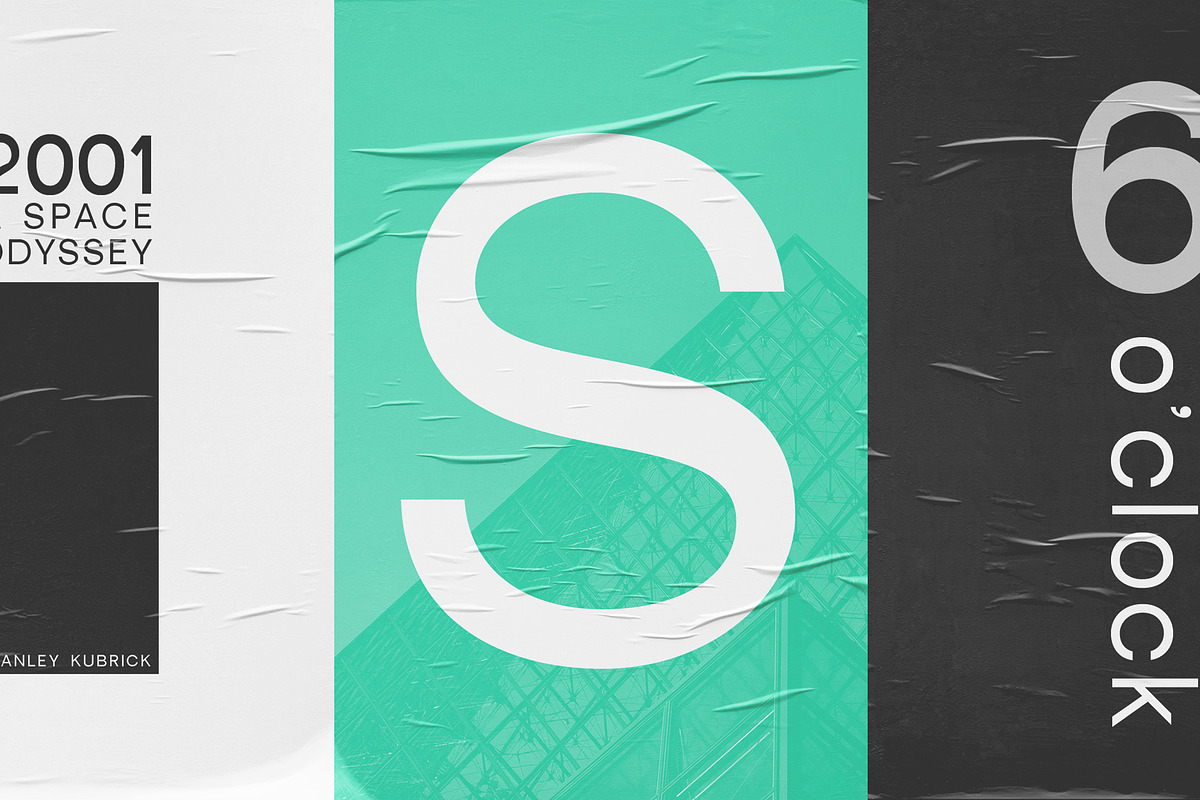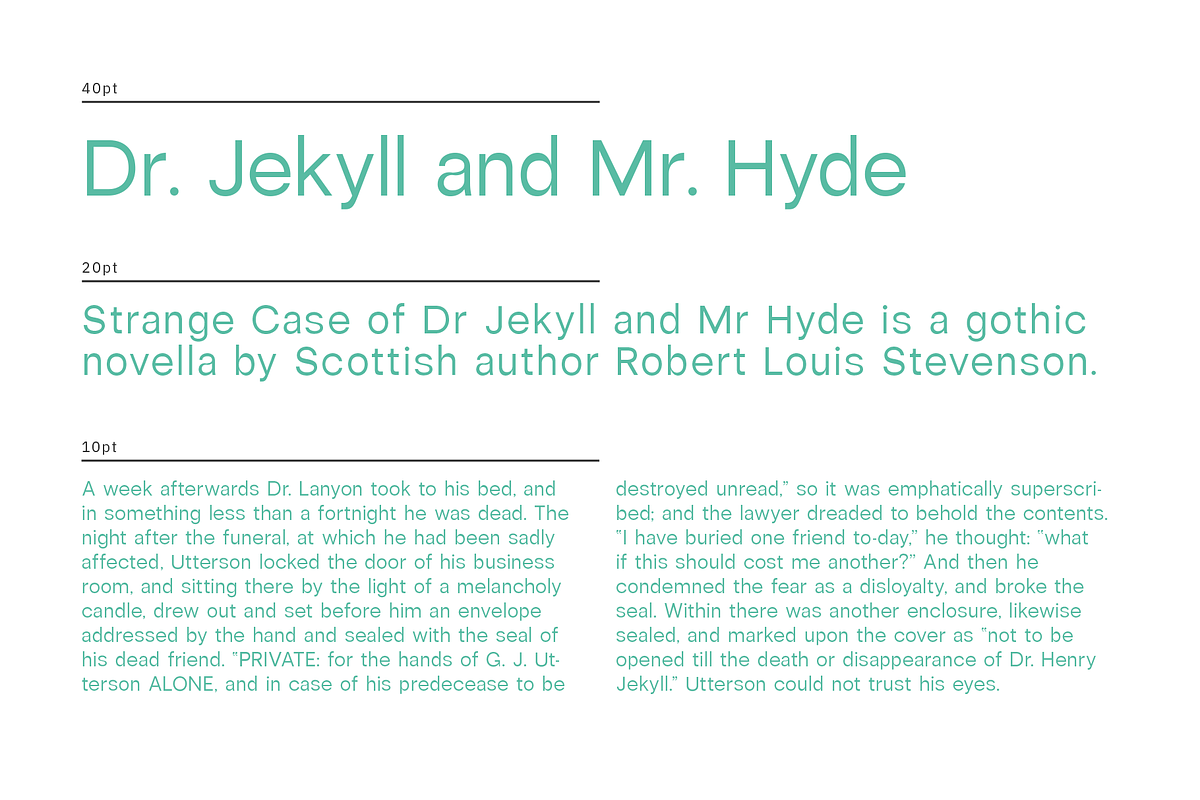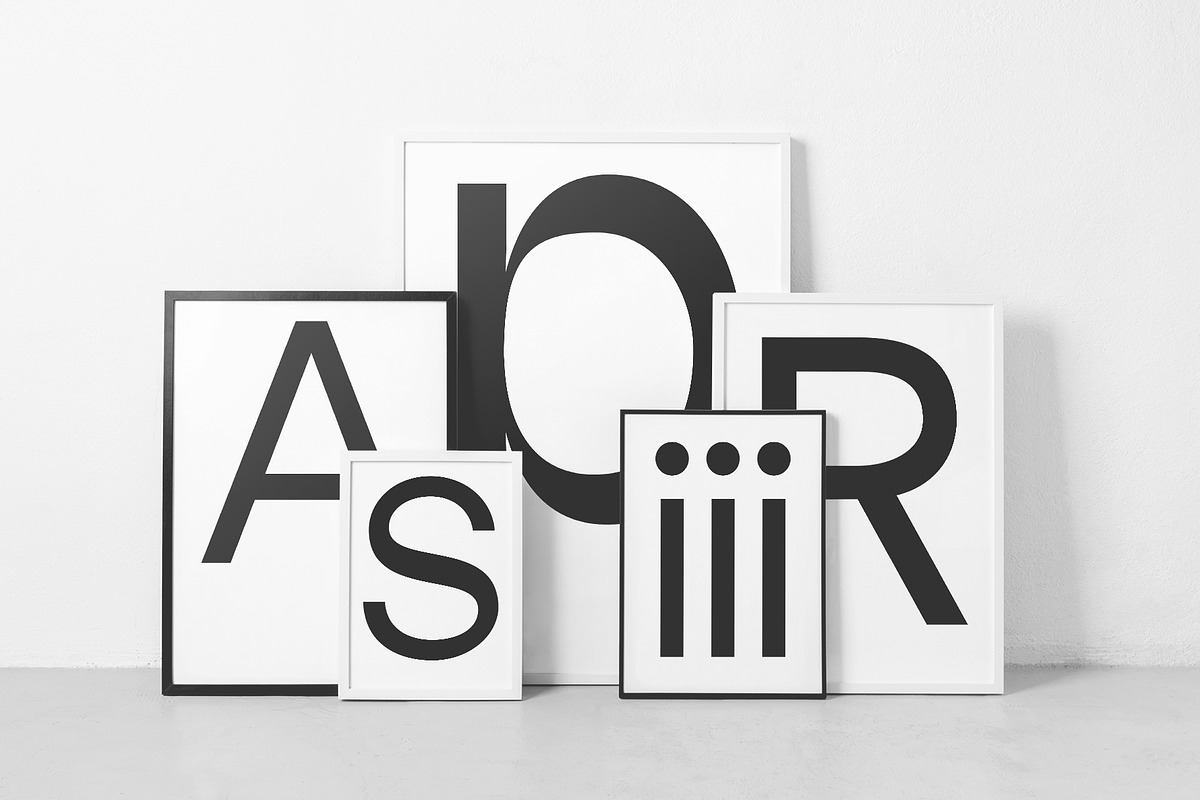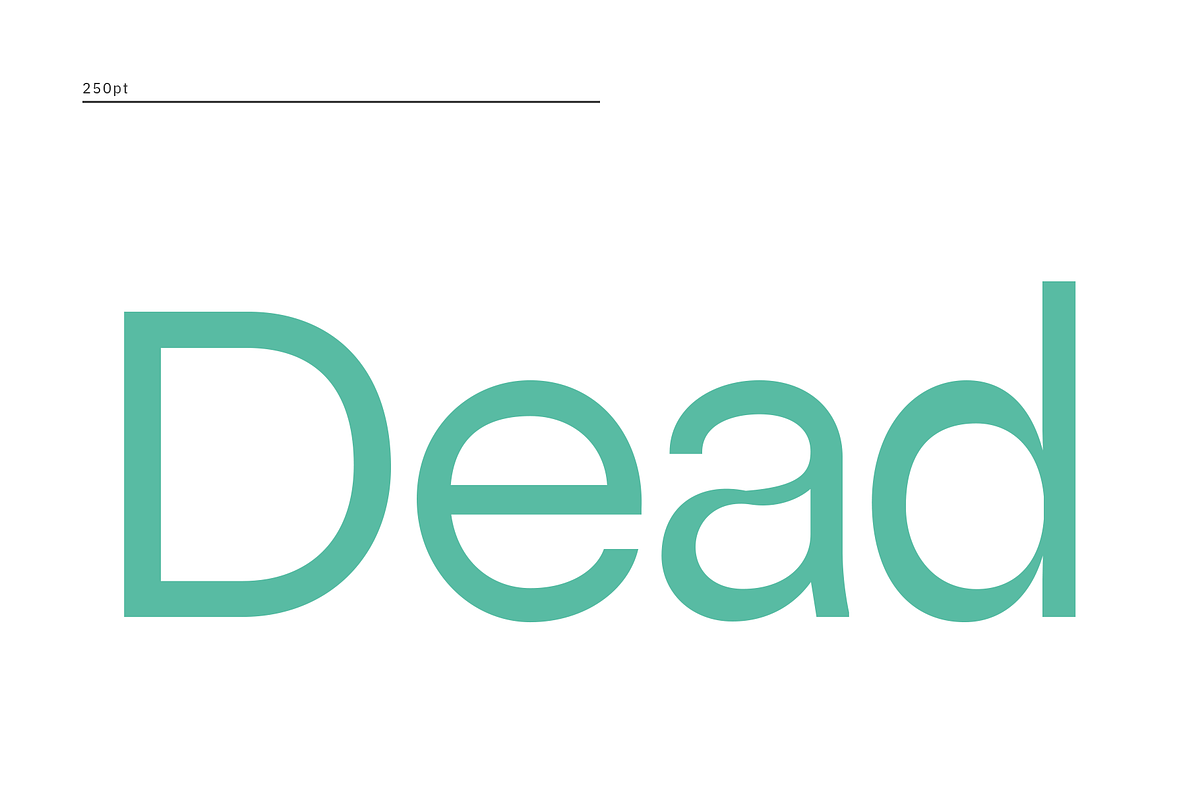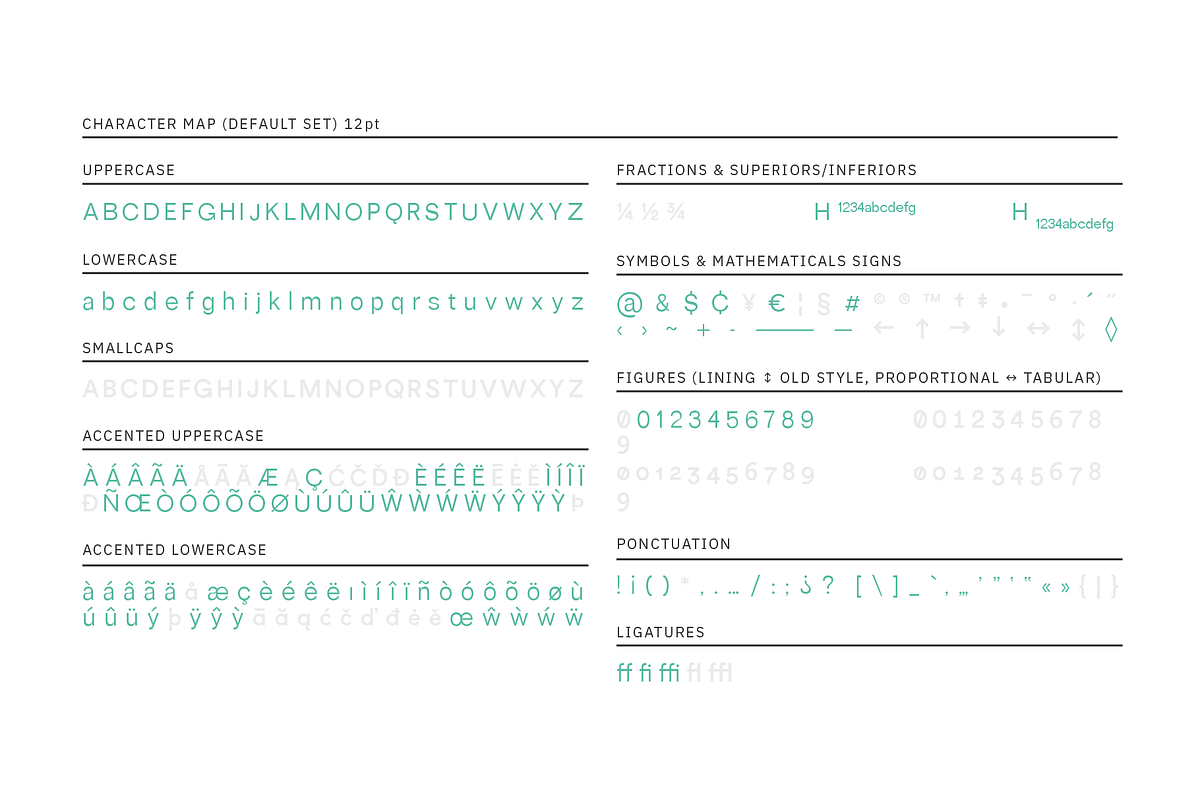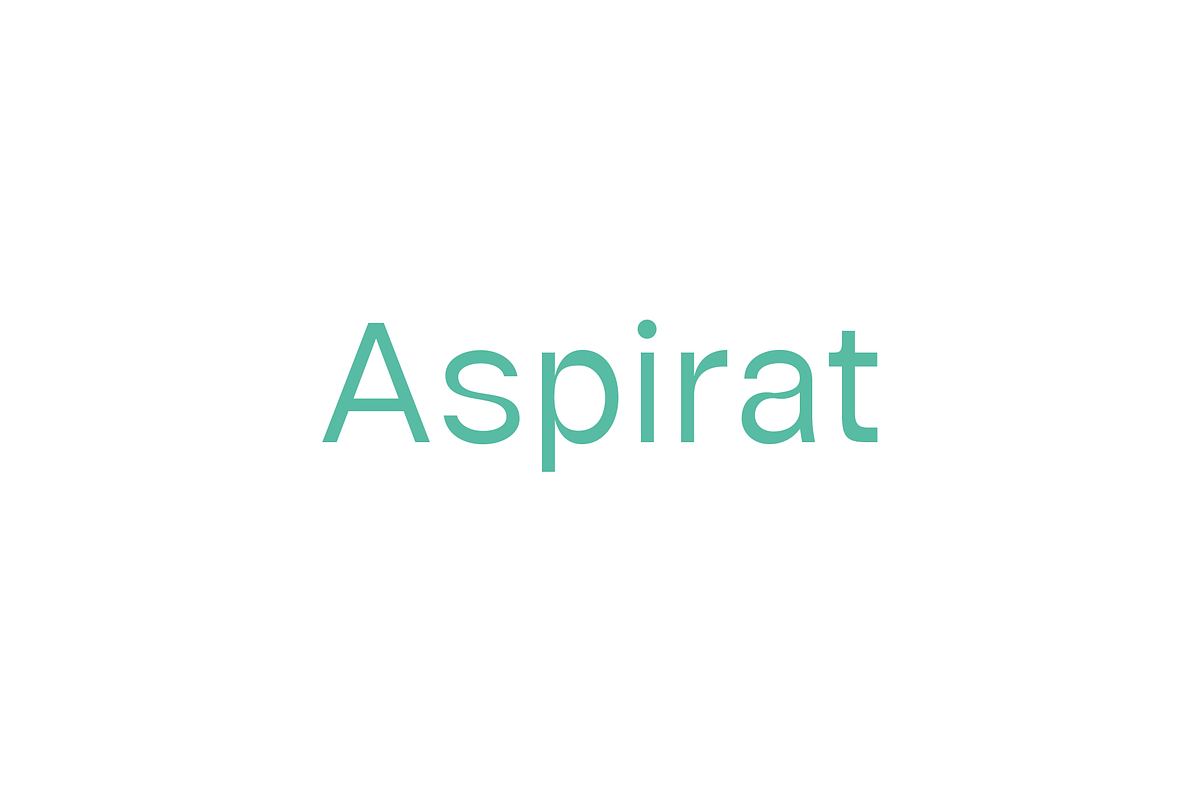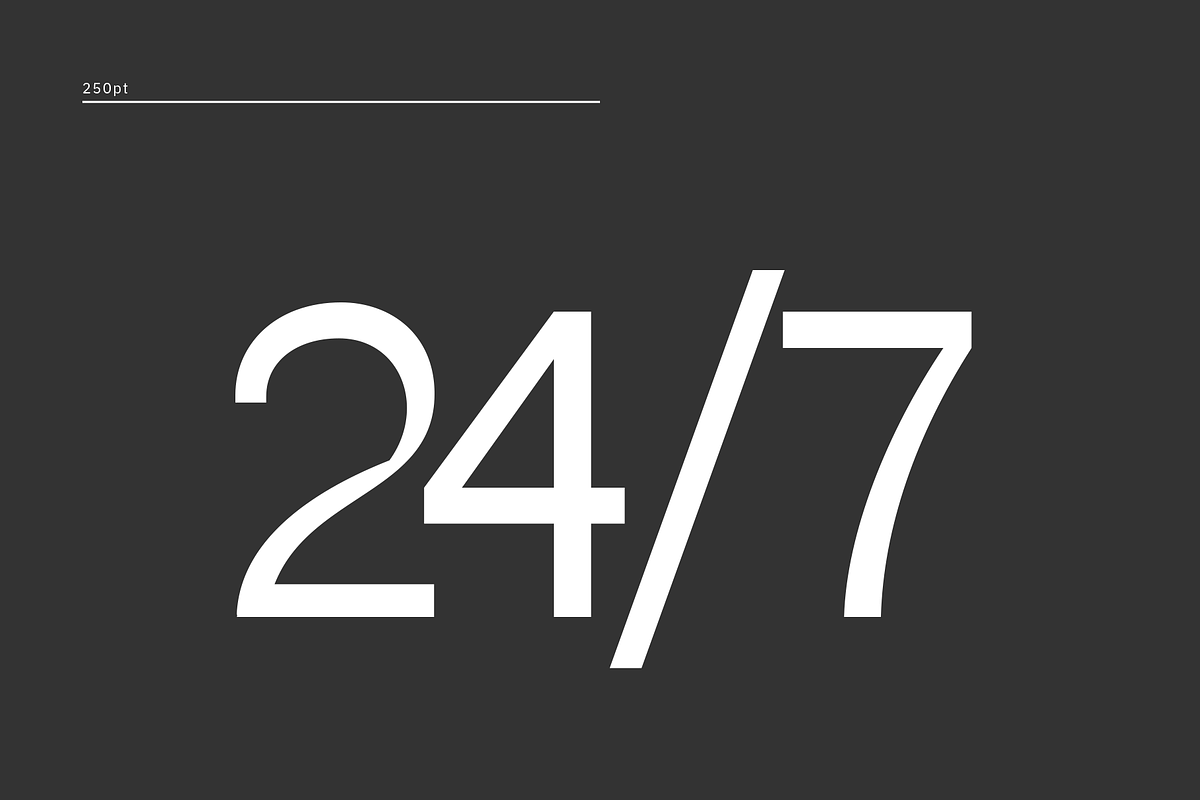
Aspirat Typeface
ASPIRAT draws its source from my RE: CARAVELLE family. This modern sans serif will surprise you on details while keeping an efficiency in its use for all your projects.
You can use ASPIRAT for print and web projects as well. It will fit perfectly for fashion, music, logo design, flyers, posters and many more.